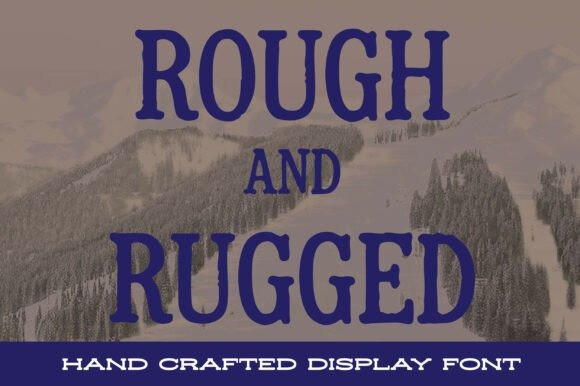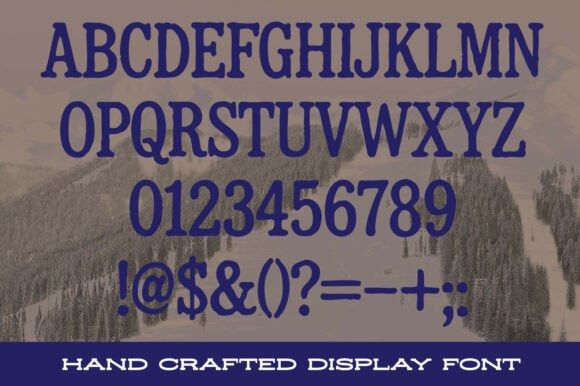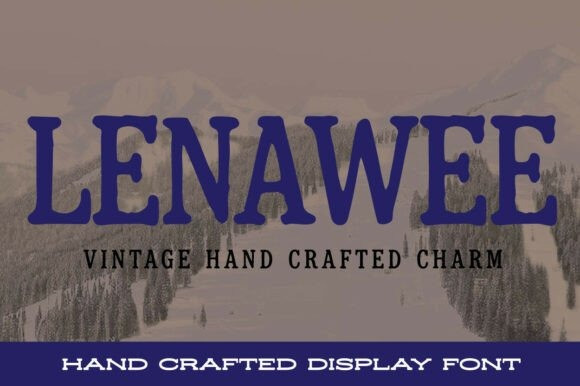
Lenawee Font
Lenawee Font is a distressed, skinny vintage font with rough edges and an organic, hand-drawn feel. Inspired by antique type specimens and time-worn signage, its tall, narrow characters bring a touch of rustic charm while maintaining readability. Each letter has been carefully crafted with natural imperfections, giving it an authentic aged look perfect for posters, packaging, logos, and vintage-themed designs. Lenawee captures the spirit of handmade artistry with its raw texture, making it ideal for projects that call for character and grit.